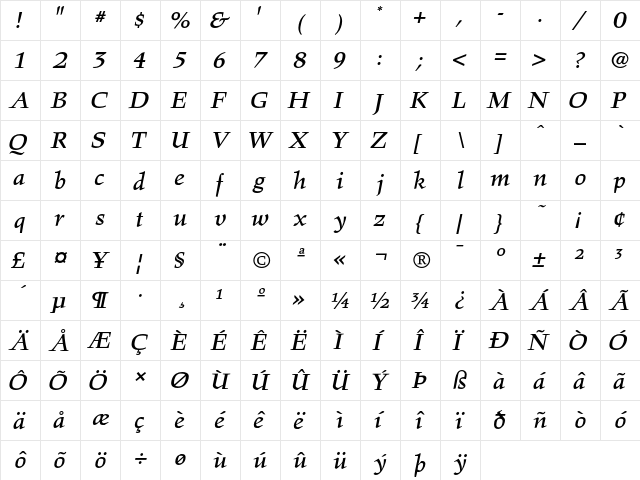
Hawkhurst LT Std BoldItalic Regular Font Preview
| Foundry | Linotype Library GmbH |
| Designer | Richard Yeend |
Design Context for Hawkhurst LT Std BoldItalic Typeface
Hawkhurst LT Std BoldItalic takes a measured approach to typography — its balanced proportions and neutral character make it a reliable workhorse for both digital and print work. Its italic angle brings a sense of urgency and motion to the letterforms. Its bold stroke weight gives it real presence on the page.
Pro Tip: Try Hawkhurst LT Std BoldItalic for annotation and caption copy alongside an upright companion — the contrast in angle creates a dynamic but ordered typographic system.